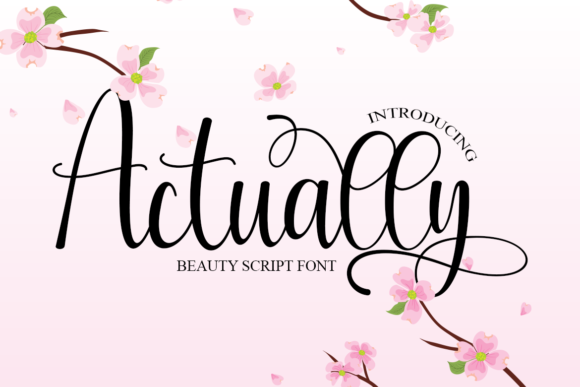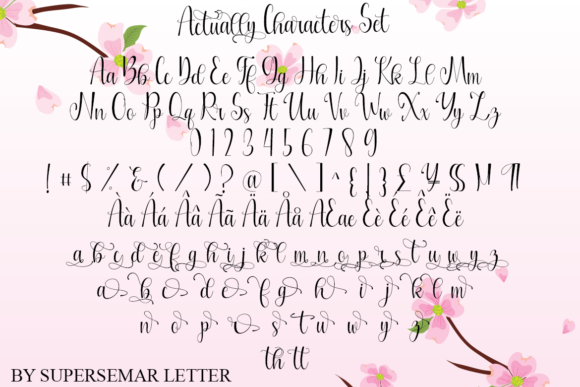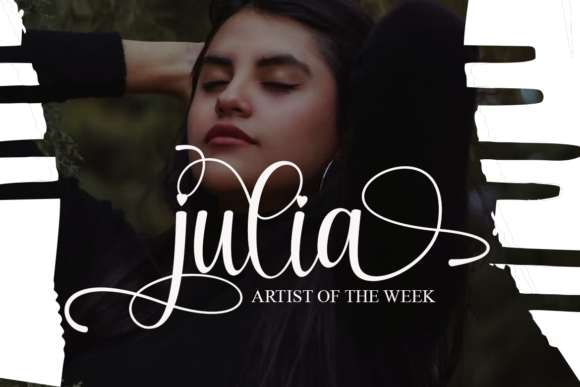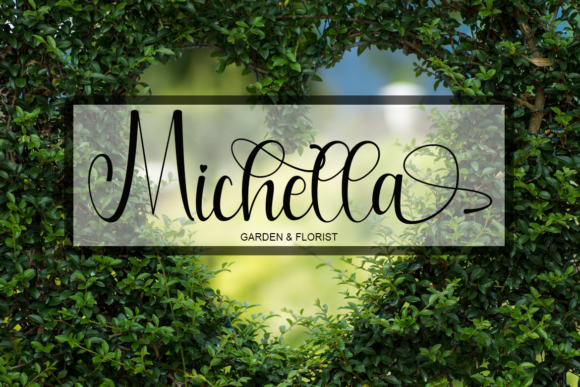
About Actually Font
Actually is a romantic and sweet calligraphy typeface with characters that dance along the baseline. It has a casual, yet elegant touch. This font is PUA encoded which means you can access all of the glyphs and swashes with ease!